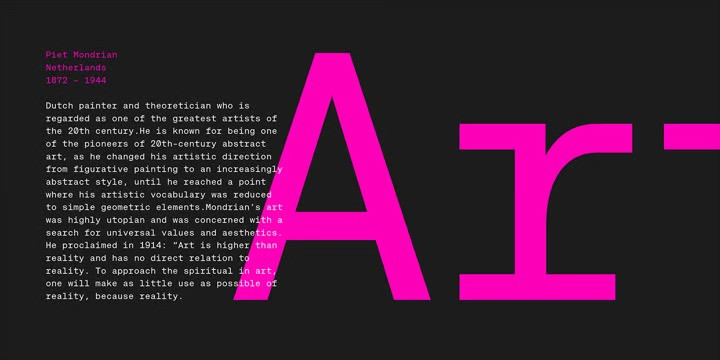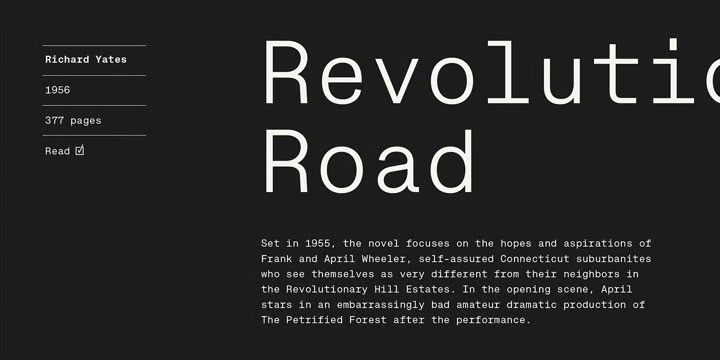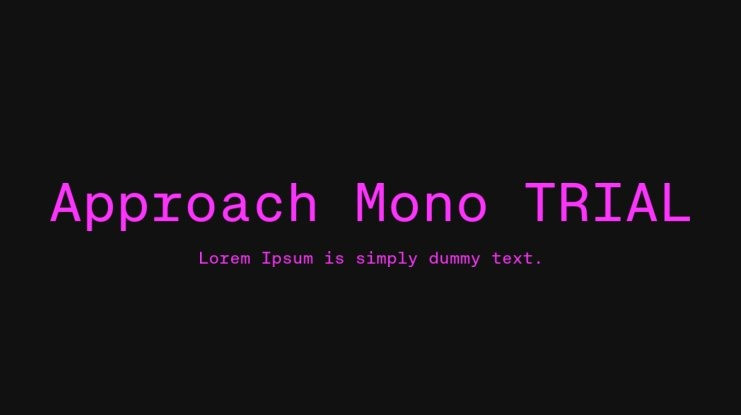
Approach Mono Font
Approach Mono Sans Serif Font Family, is the fixed width version of Approach. A utilitarian low contrast font, a bit mechanical but plenty of character. This version shares its main features with the original one, but it has a more prominent and visible punctuation. The more obvious use of a mono would be in tables, programming code or “in progress texts”, but not just that. Approach Mono can be used in the modern communication, bringing an aseptic voice to brochures, advertising, identities and any other piece of communication.